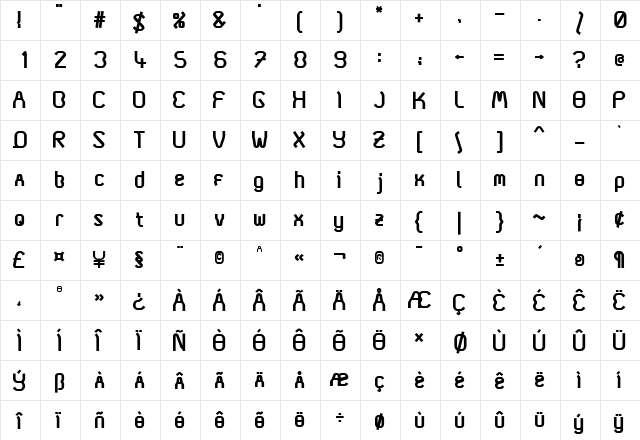
Coma01 Bold
Design Context for Coma01 Typeface
Coma01 offers clean, dependable letterforms without strong stylistic allegiance, making it a practical choice for designers who need flexibility. The heavy weight commands attention and anchors typographic hierarchies.